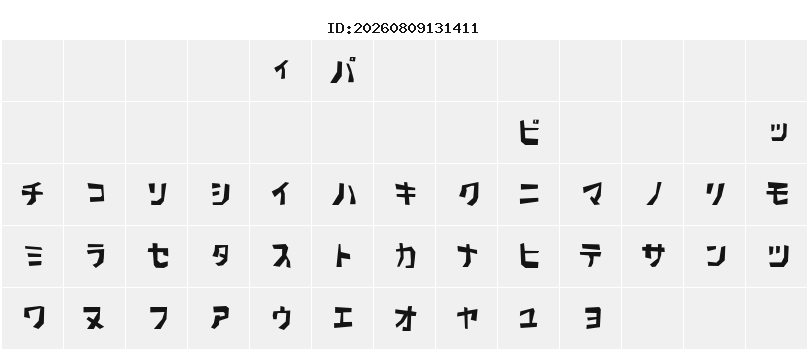
PavementKana Preview
• Font Name: PavementKana
About PavementKana.ttf
PavementKana.ttf is a modern, elegant sans-serif font designed for ultimate readability and visual harmony. Perfect for branding, headlines, web design, and print materials.